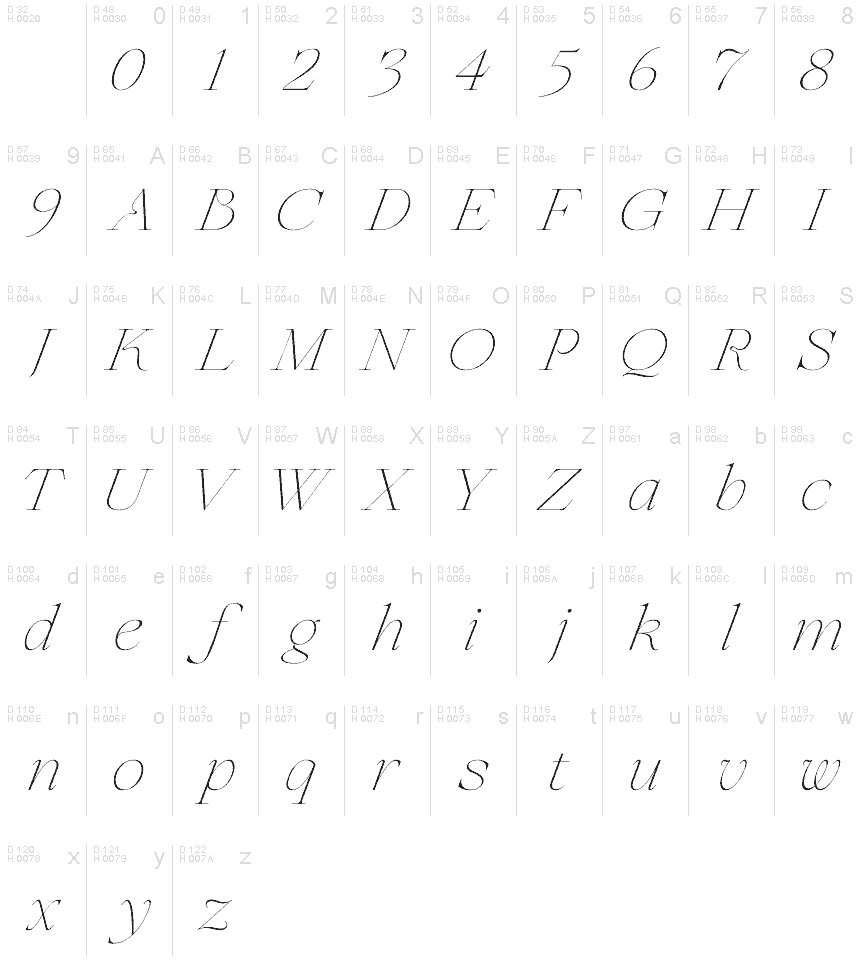
feonie Italic
Feonie Italic font by ReyreyBlue is an elegant serif with refined decorative elements and influence from modern styles. It brings a unique, sophisticated feel to each character with its high contrast, yet it still maintains a level of legibility across its letters due to the light weight of the font.
This free serif font makes for an ideal fit for branding designs like logos, business cards, stickers, letterheads, and more. Other uses can include movie posters and intro scenes or graphic design for T-shirts, labels, signs as well as invitation cards including wedding invitations.